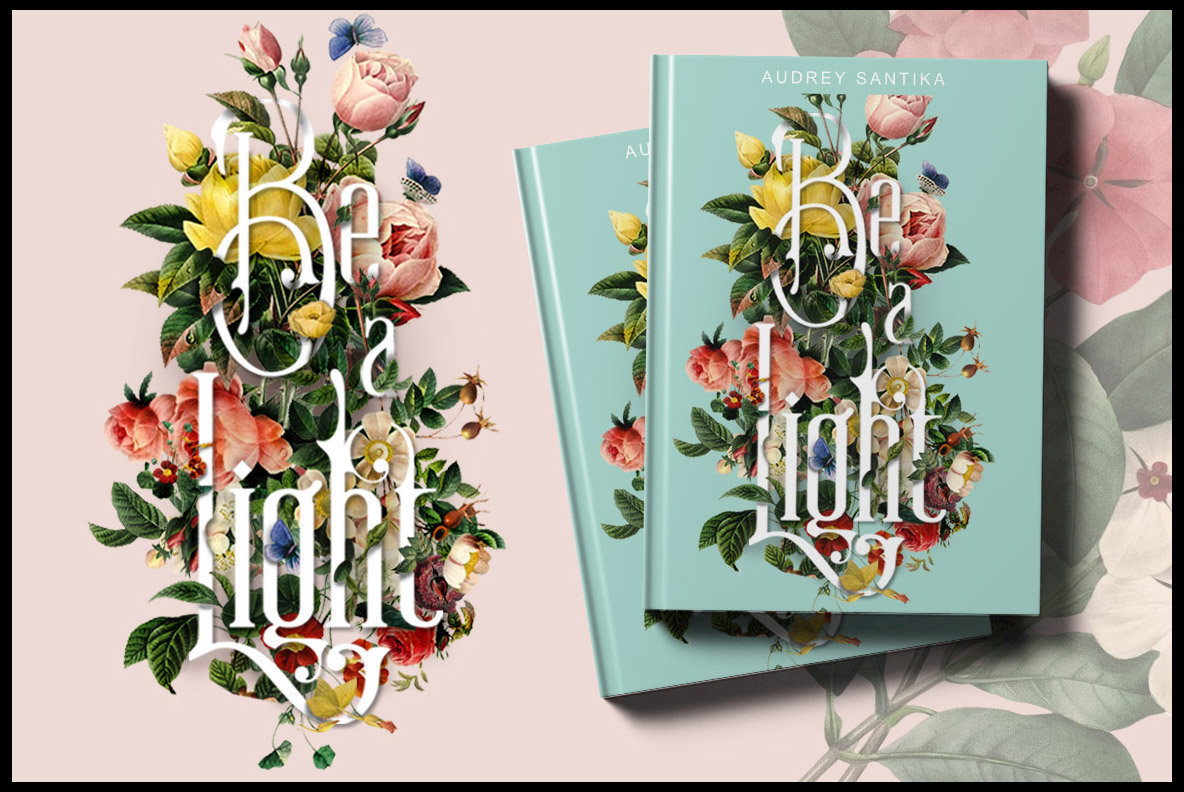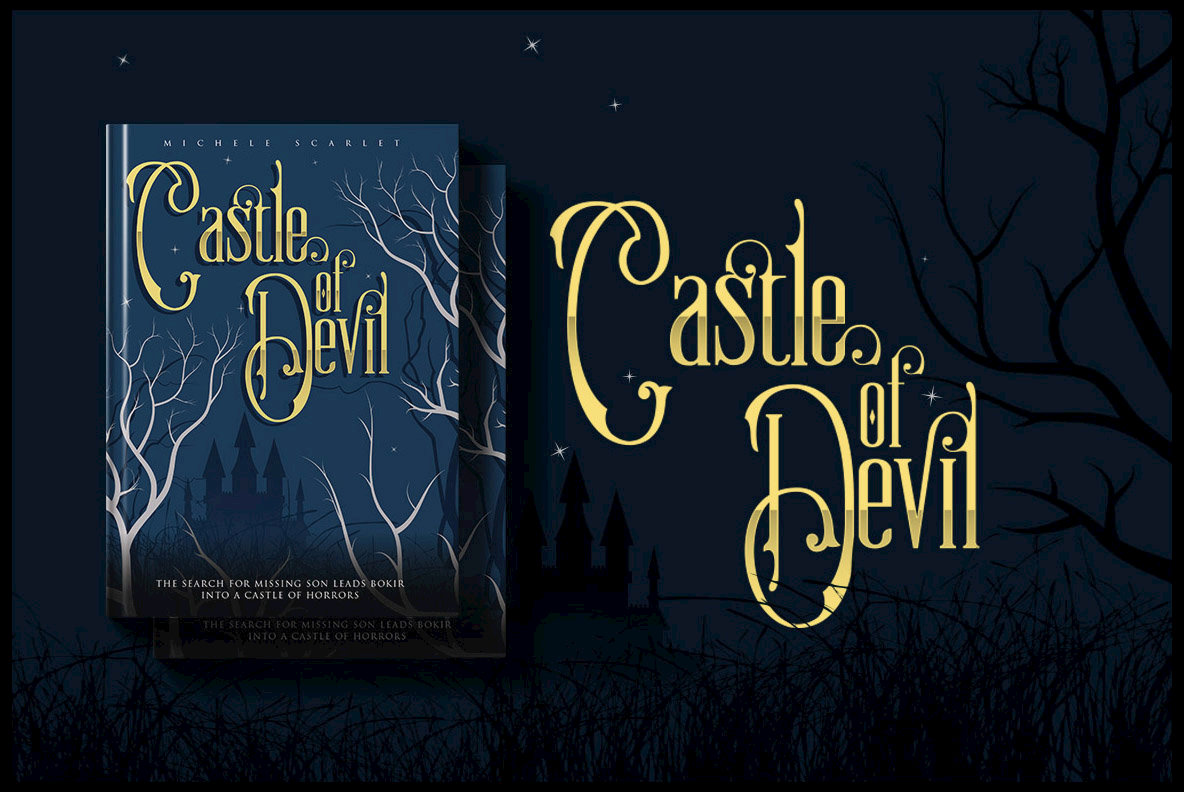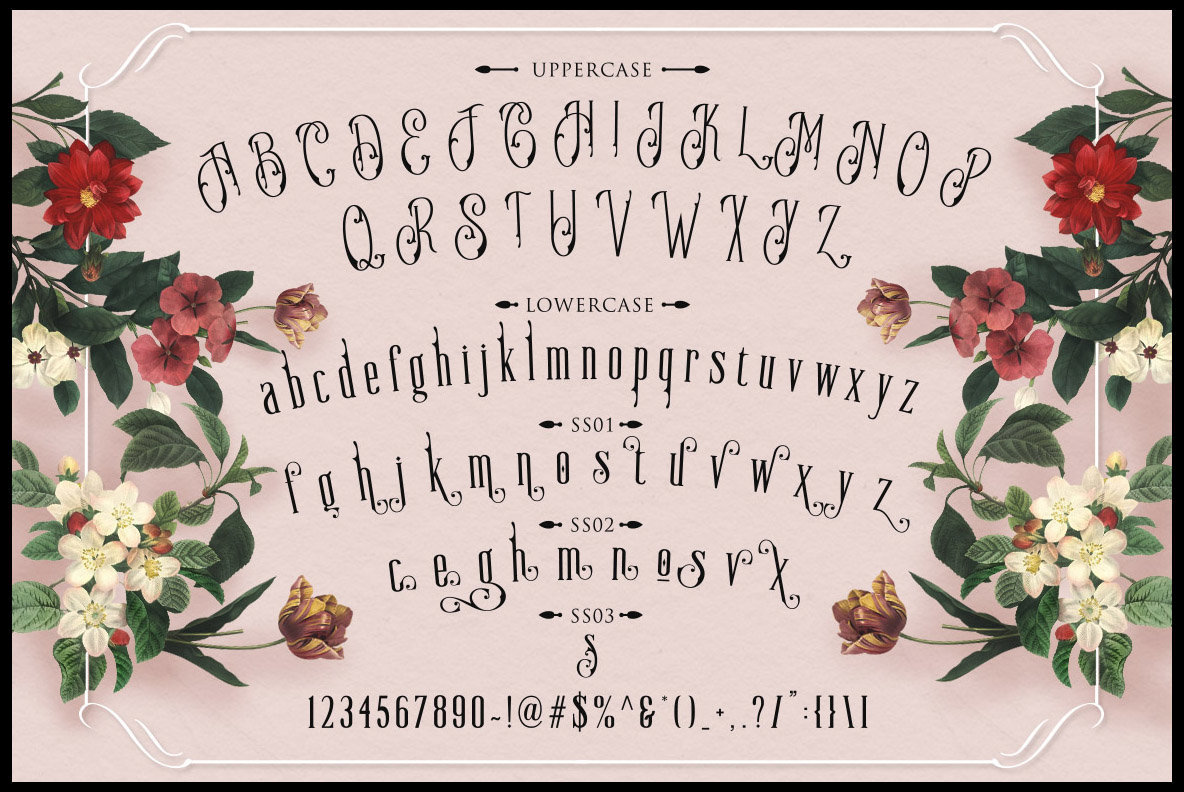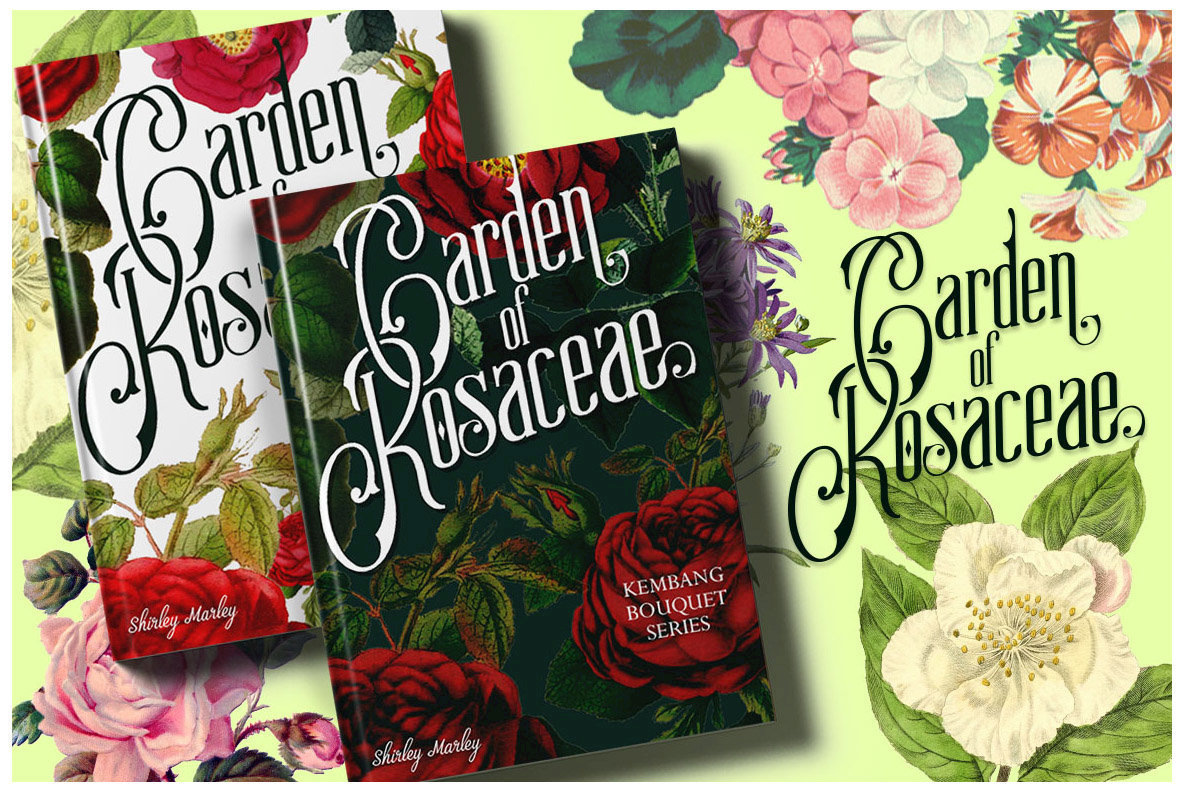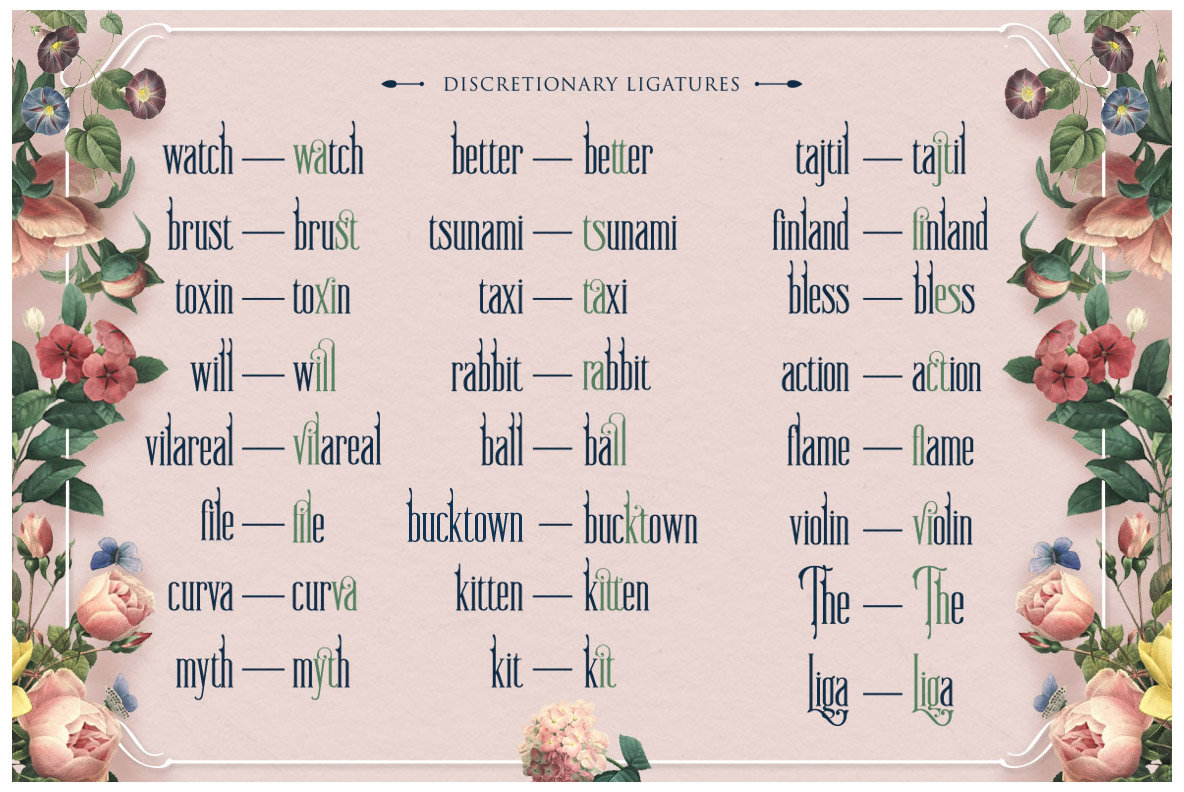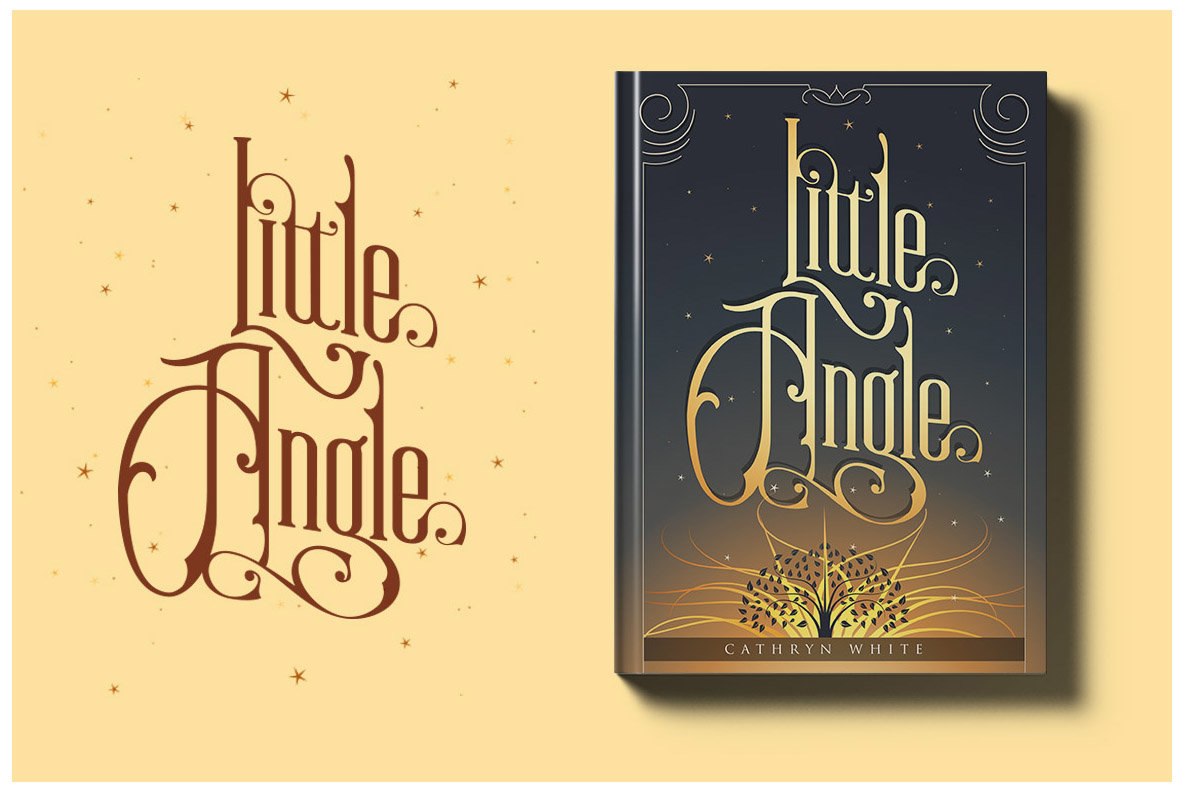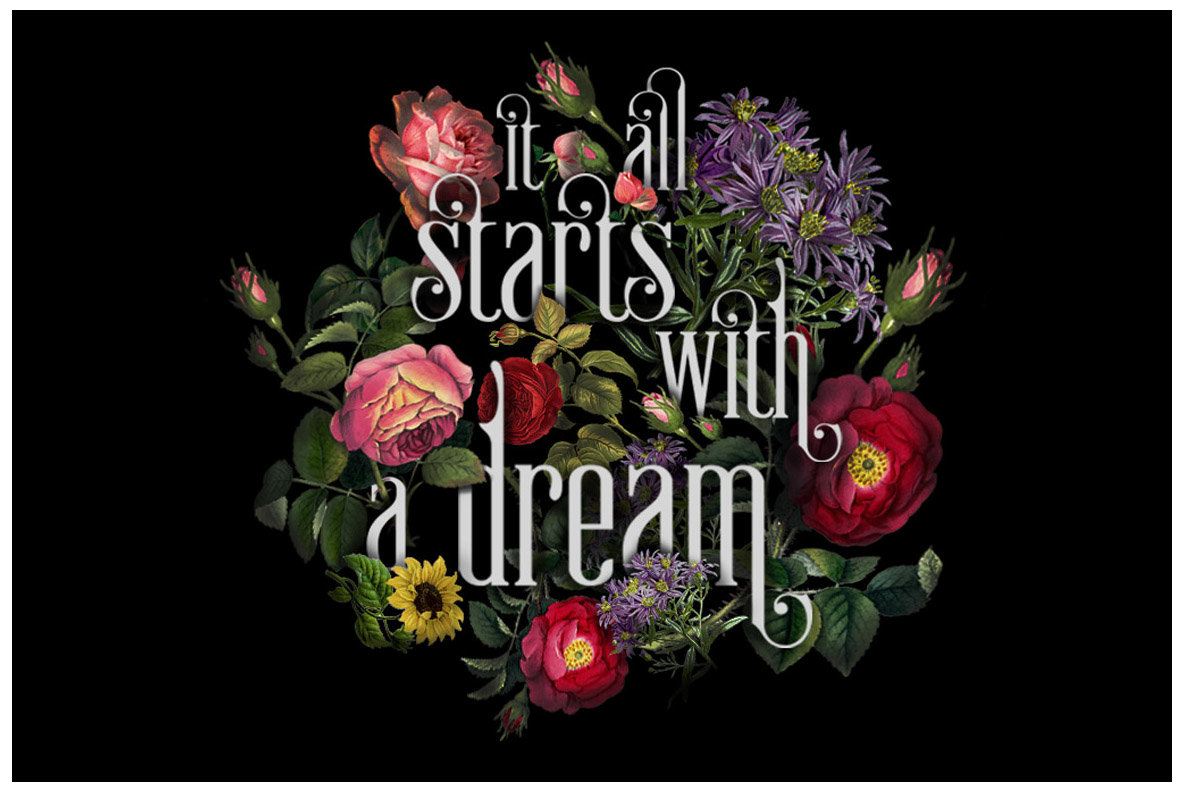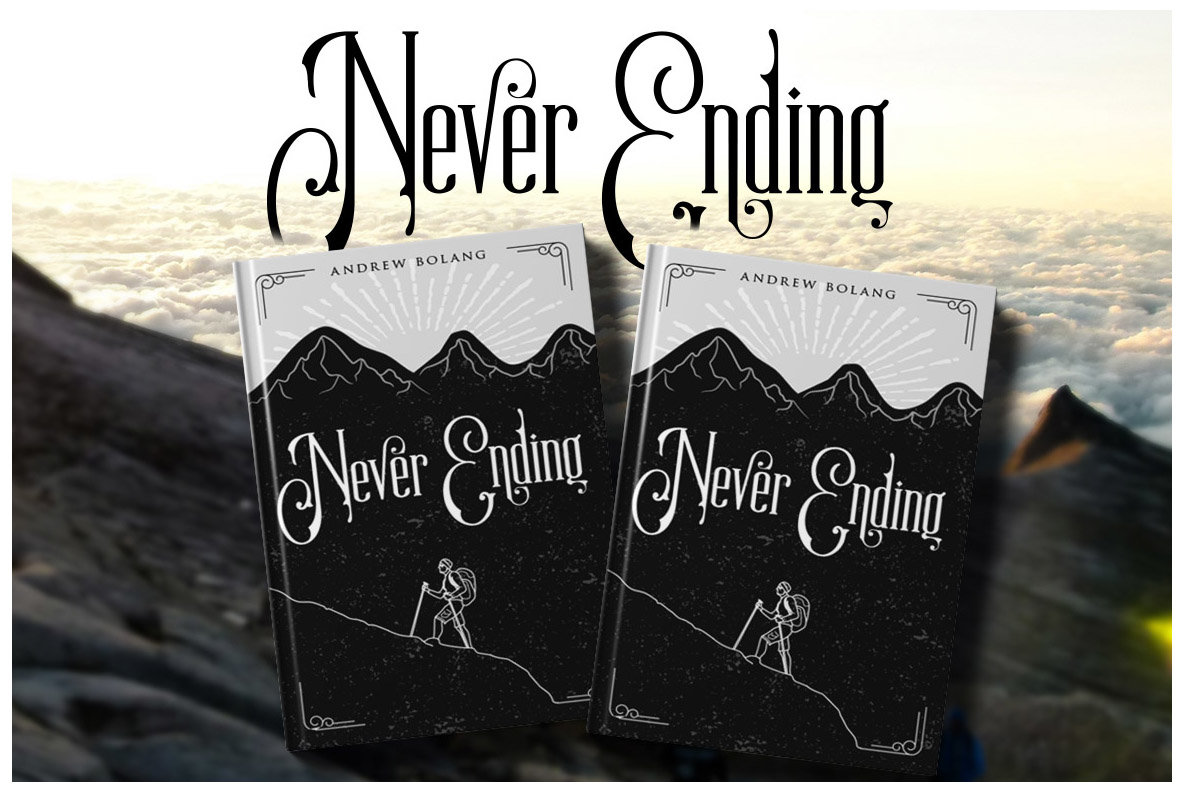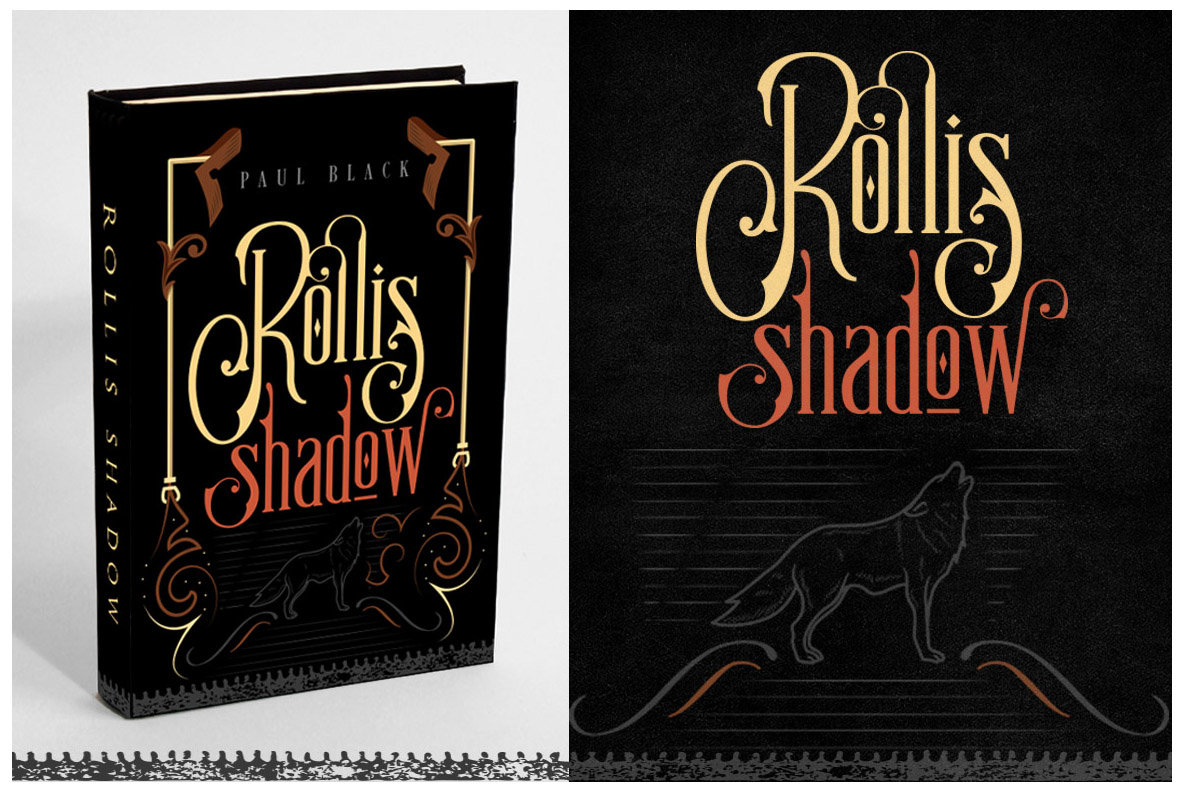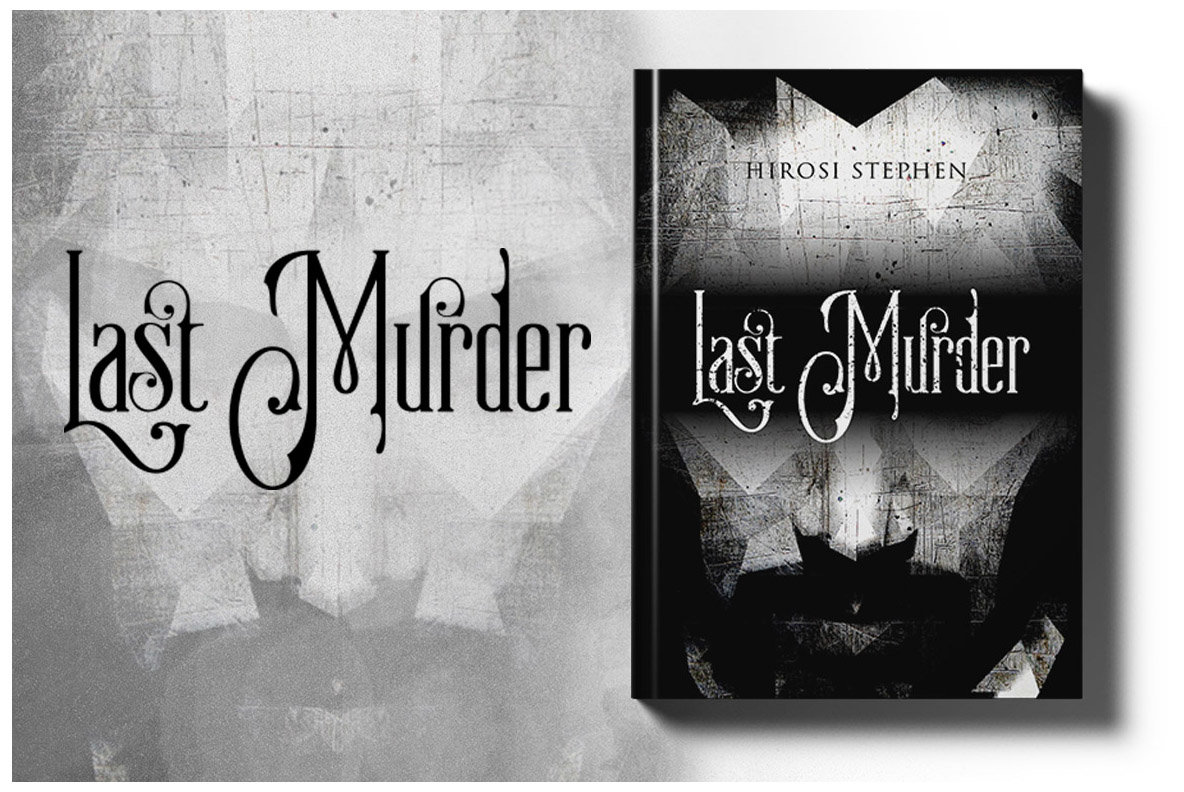
Moody Blue Font
Moody Blue
Moody Blue is a classic display typeface that evokes the elegance and flair of vintage typography and traditional art forms. Drawing inspiration from the timeless appeal of book and novel covers, its design offers remarkable versatility suited for an array of creative projects. Moody Blue supports OpenType features, giving designers the opportunity to explore varied letter pairings and stylistic alternatives. This capability is particularly beneficial in software like Adobe Illustrator CS and Adobe InDesign, enabling customized and refined outputs. With applications spanning from book covers and product packaging to logos and movie titles, Moody Blue adapts seamlessly to both playful and serious design themes. It is as fitting for a wedding invitation as it is for a mystical poster, offering sophistication and ambience. This typeface suits projects across genres, bringing a quieter, more relaxed aesthetic to your designs.Moody Blue: A Classic Display Typeface